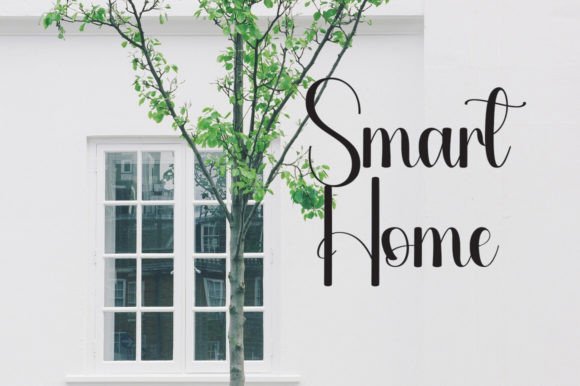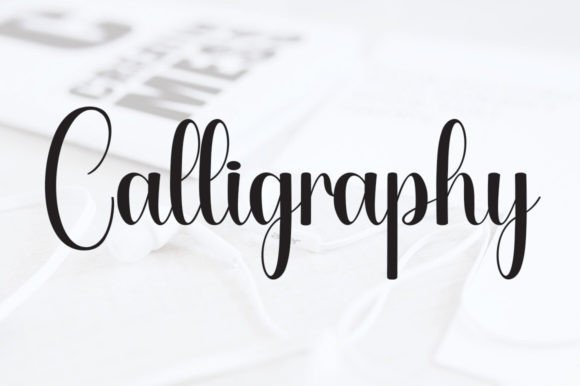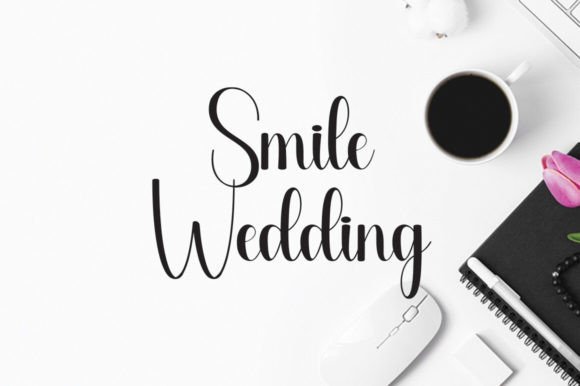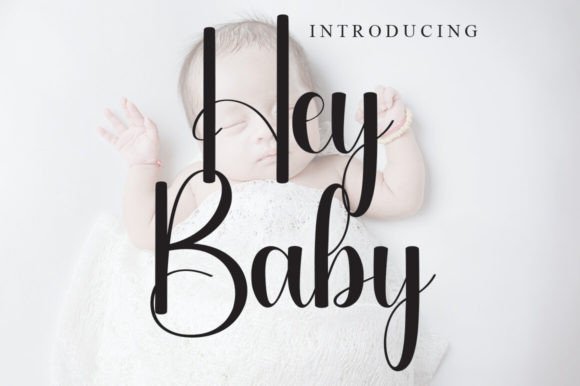
Introduction to Hey Baby Font
Introducing β€˜Hey Baby’, a delicately crafted handwritten font that embodies an irresistible blend of sweetness and cursive elegance.
Its gentle essence can instantly elevate the aesthetic appeal of numerous design concepts Infuse a dash of joy and romantic allure to your unique projects with this enchanting font.